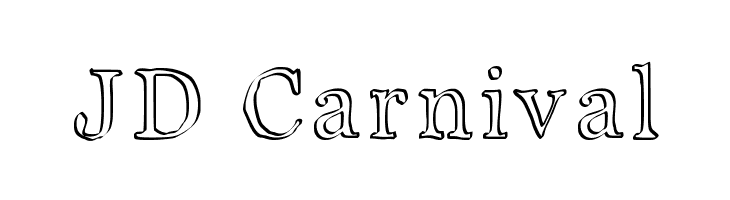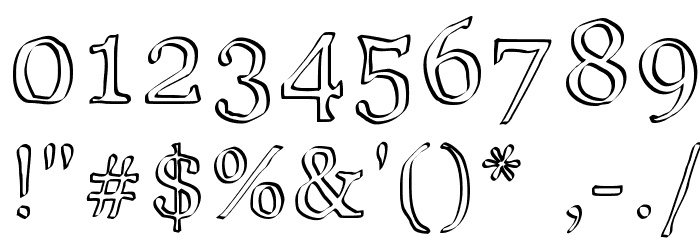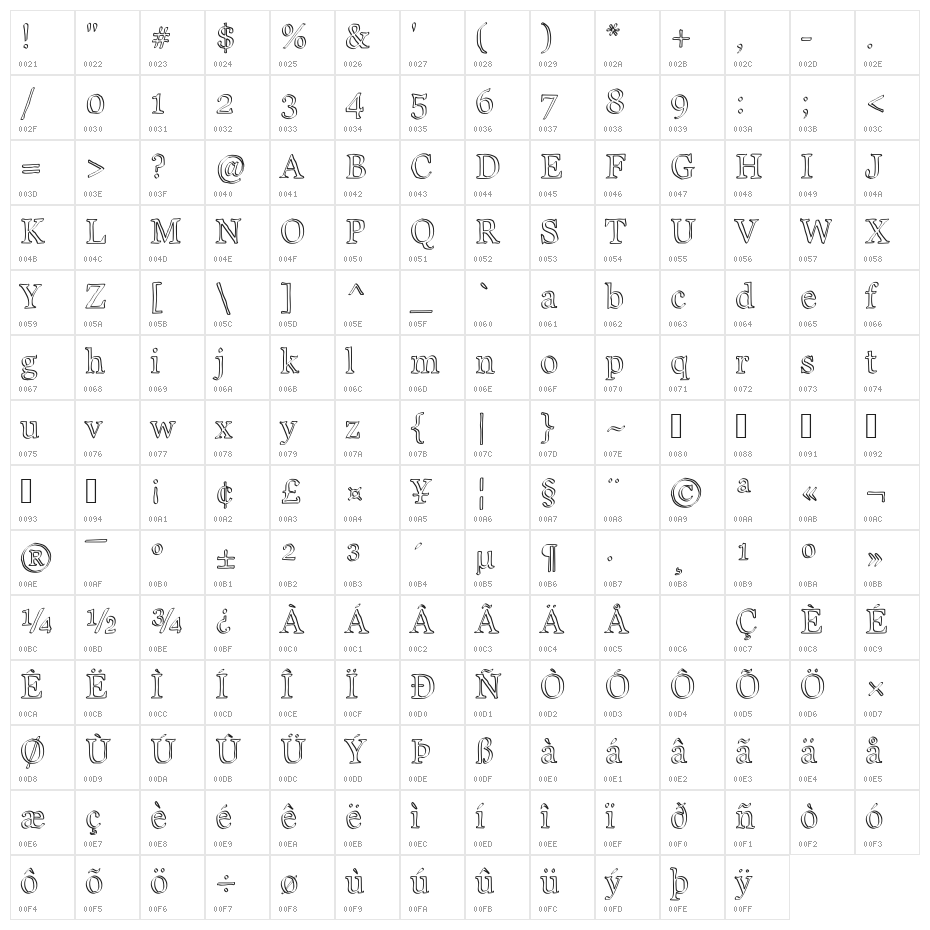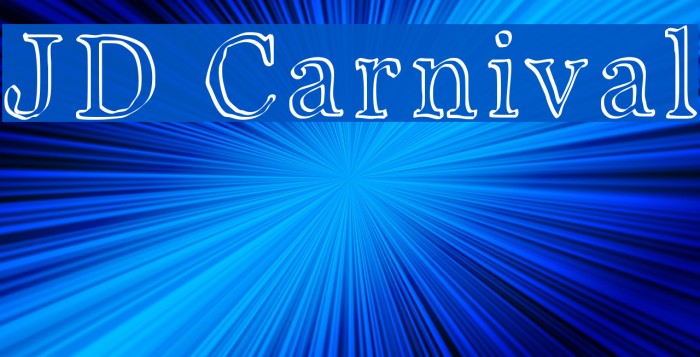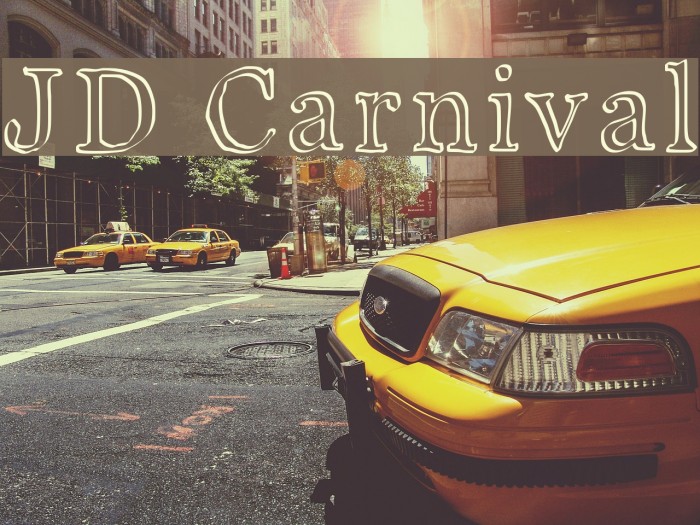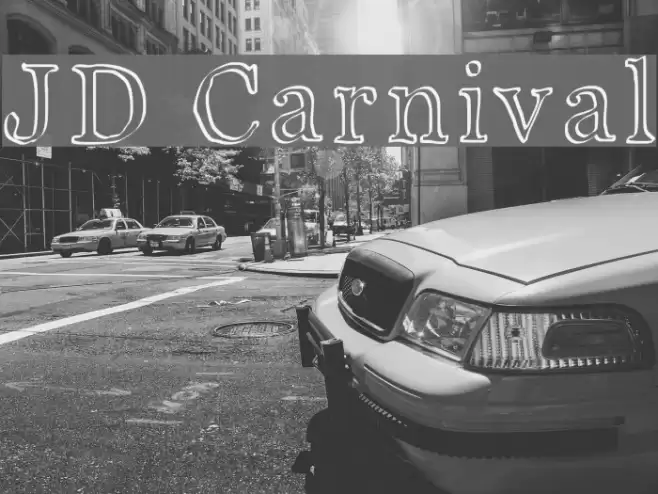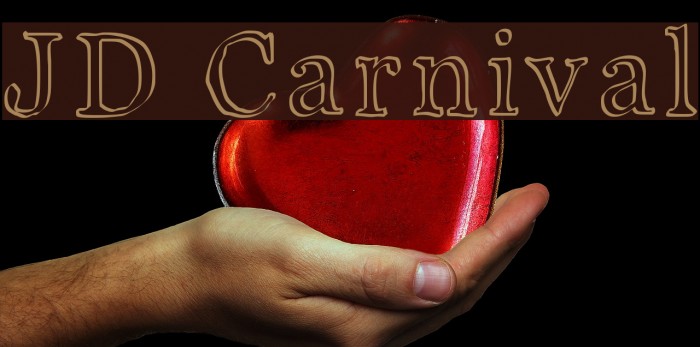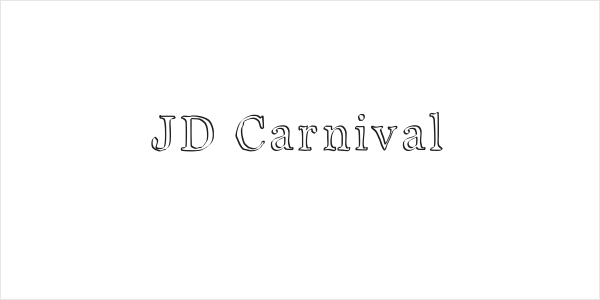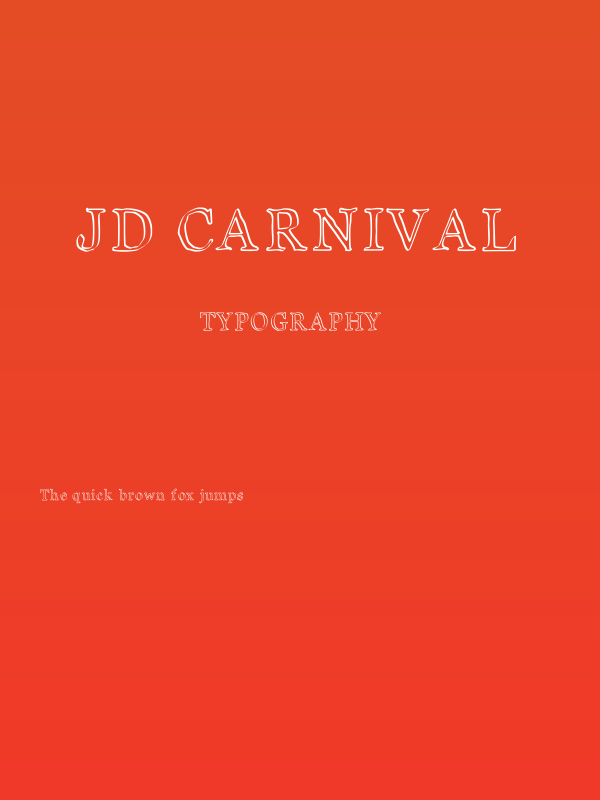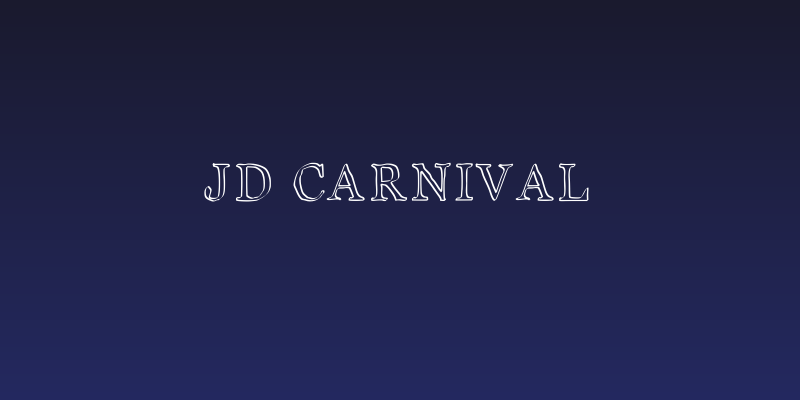
JD Carnival Font
JD Carnival Description
This font features a playful and decorative style, reminiscent of vintage carnival posters. The characters are outlined with a bold, black stroke, giving them a three-dimensional appearance. The letters have a whimsical flair, with slight variations in stroke width that add to their charm. The uppercase letters are bold and commanding, while the lowercase letters maintain a consistent style with a slightly more delicate touch. Numbers and special characters are equally stylized, ensuring a cohesive look across all text. This font is perfect for capturing attention and adding a touch of nostalgia to any design.
| Overall Style | Vintage, Decorative |
| Proposed Projects | Ideal for posters, event invitations, branding for entertainment venues, or any project seeking a fun, nostalgic vibe. |